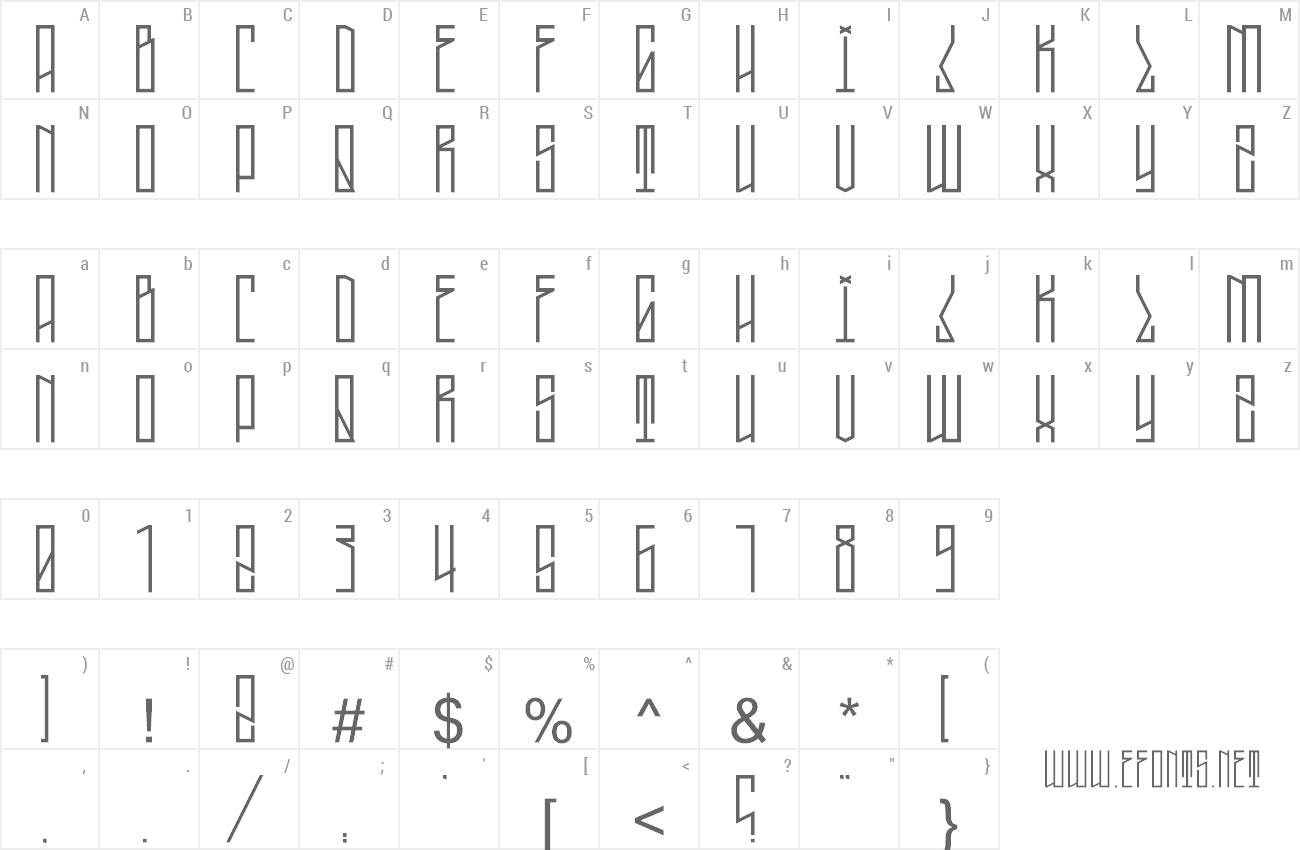
Preview and download Tall Boy West Font. Created by Out of Step Font Company in Techno Various styles with Donationware license.
This is a geometric variation of a tall font from my personal font bible. I eliminated the serifs, made the B and U more interesting, and cloned the R from the K. I then built the number set out of geometric variations of the other letters. This font has been selected as a Top Pick on Fonstruct.com; stoked! |